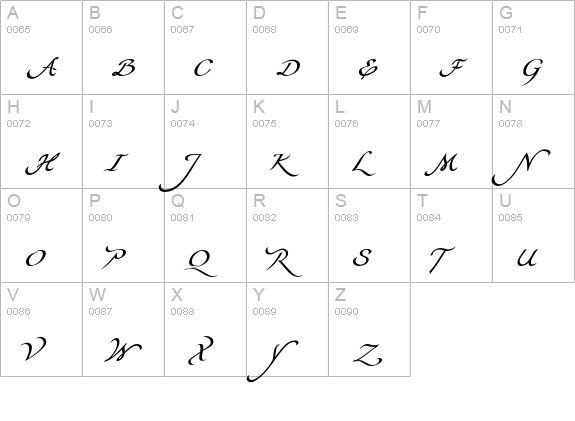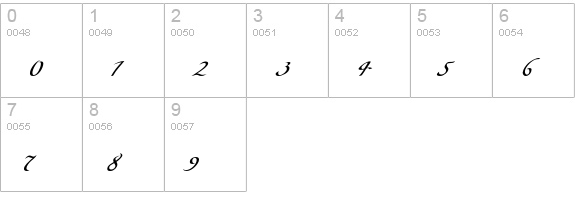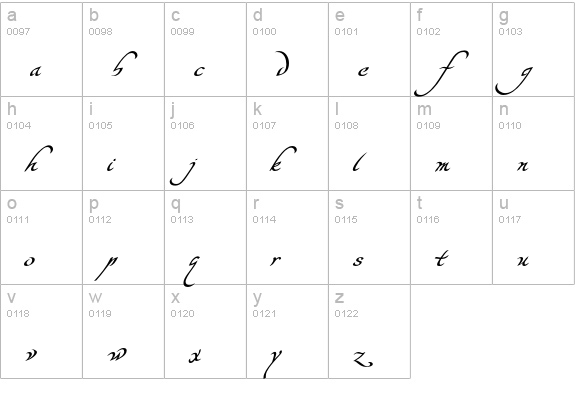
Yevida-Potens Font Details
Yevida-Potens font is a captivating and versatile typeface that exudes elegance and sophistication. With its unique blend of modern and classic elements, this font is perfect for a wide range of design projects, from branding and advertising to editorial and web design. Featuring clean lines and a sleek, contemporary aesthetic, Yevida-Potens font is sure to make a statement and leave a lasting impression. Its balanced proportions and distinctive letterforms give it a distinctive look that sets it apart from other fonts. But the best part? Yevida-Potens font is completely free to download at FontsMarket.com. That's right, you can get your hands on this stunning font without spending a dime. So why wait? Add Yevida-Potens font to your design arsenal today and take your projects to the next level.